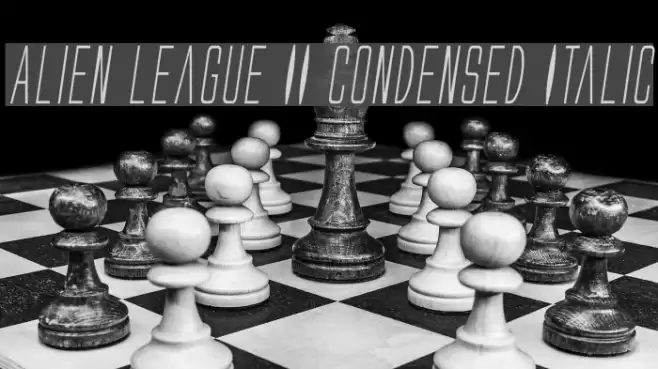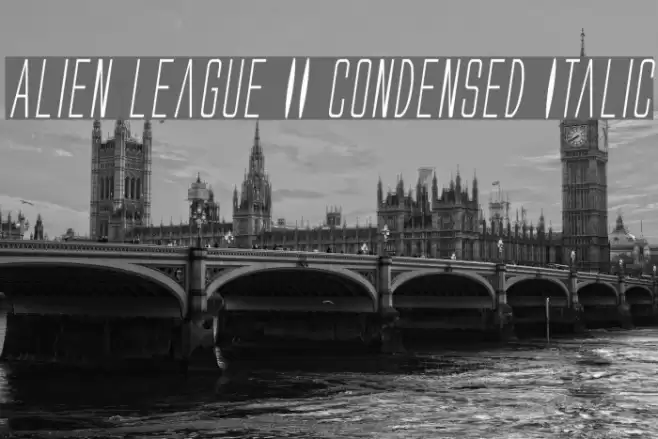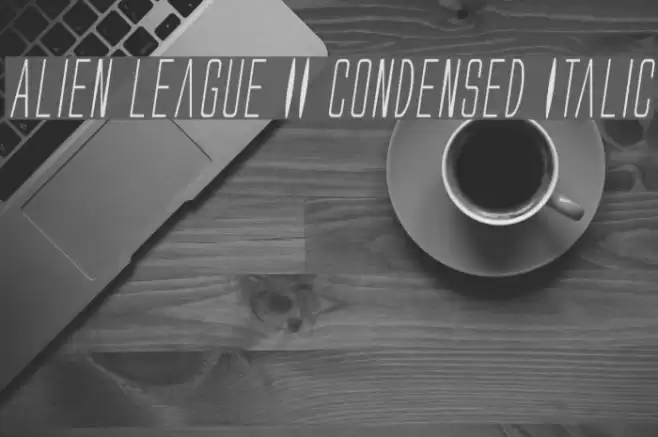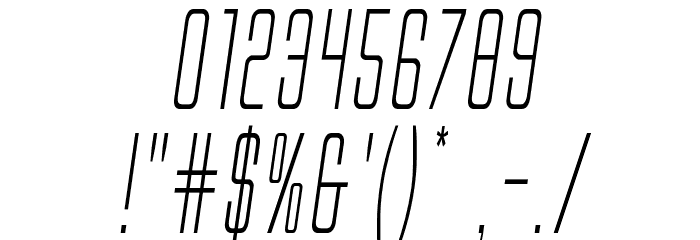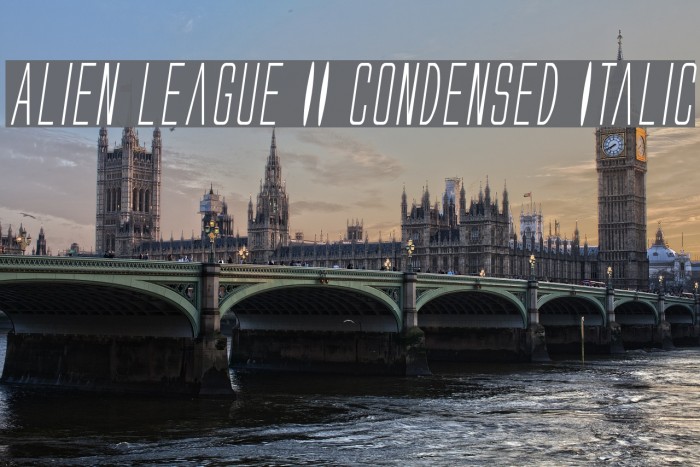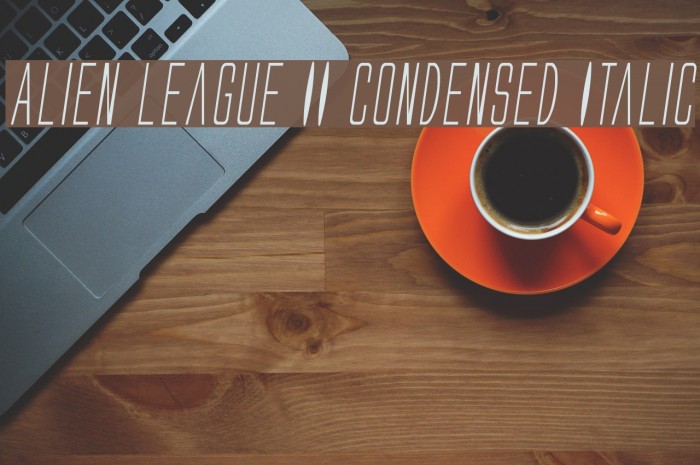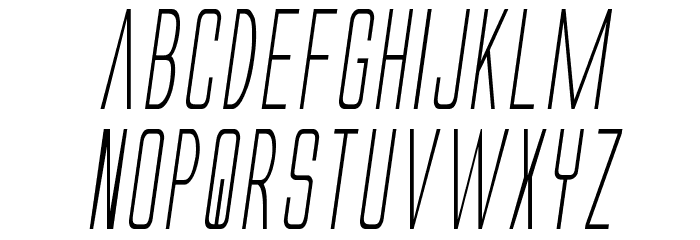
Alien League II Condensed Italic Font
Alien League II Condensed Italic Description
This font features a sleek, futuristic design with a condensed and italicized style. The characters are elongated and slightly slanted, giving them a dynamic and forward-moving appearance. The strokes are uniform in thickness, contributing to a clean and modern aesthetic. The uppercase and lowercase letters maintain a consistent height, enhancing readability while preserving a unique flair. The numerals and special characters are designed to match the overall style, ensuring a cohesive look across all text elements. This font is ideal for projects that require a modern and innovative touch.
A sleek, futuristic, condensed italic font with uniform strokes from Uncategorized fonts.
- Font: Alien League II Condensed Italic
- Weight: Condensed Italic
- Proposed Projects: Ideal for sci-fi themed designs, technology branding, modern posters, and innovative product packaging.